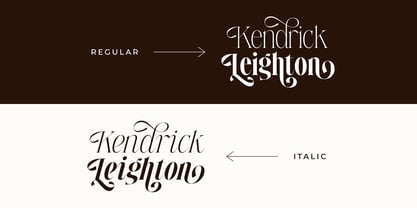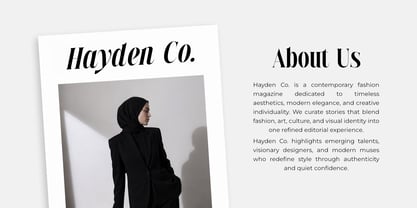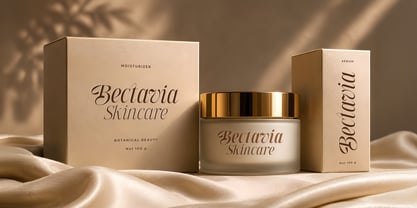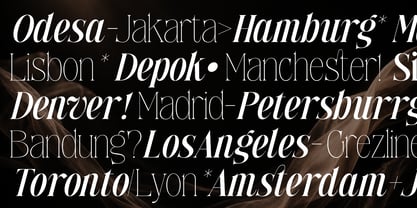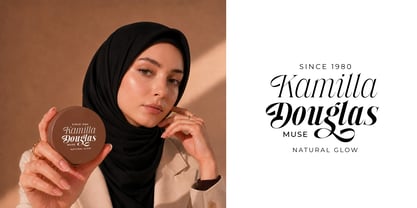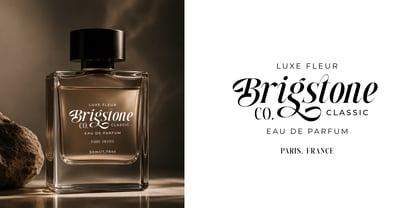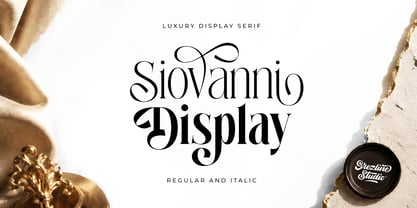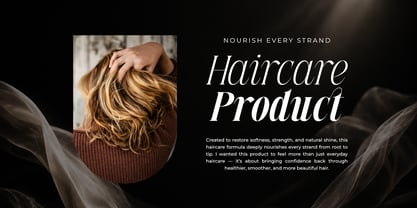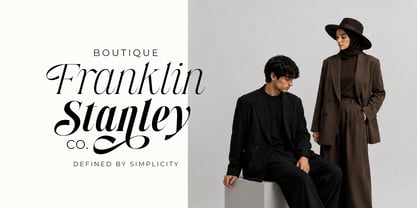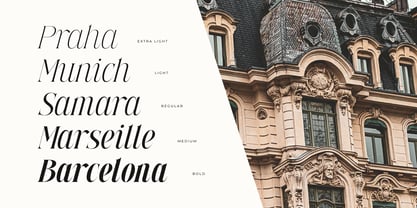
Siovanni
by Grezline Studio
The Siovanni Font Family was designed by Akhmad Reza Fauzi and published by Grezline Studio. Siovanni contains 14 styles and family package options. More about this family
Introducing Siovanni, a luxury display serif designed for creators who appreciate refined typography.
From elegant logos and fashion editorials to premium packaging and boutique branding, every curve and contrast is carefully crafted to create a sophisticated visual experience. The combination of expressive display forms and a matching Italic style provides endless possibilities for distinctive, high-end design.
When elegance matters, let typography become the centerpiece.